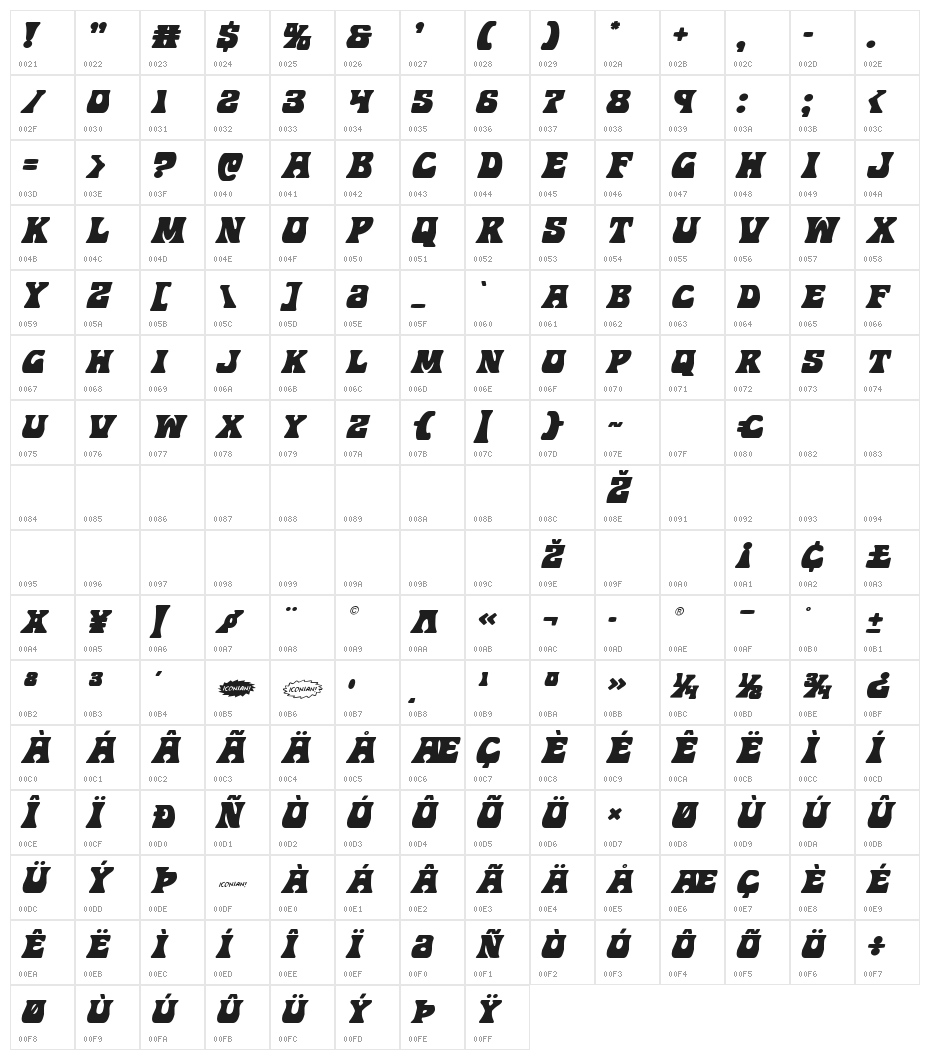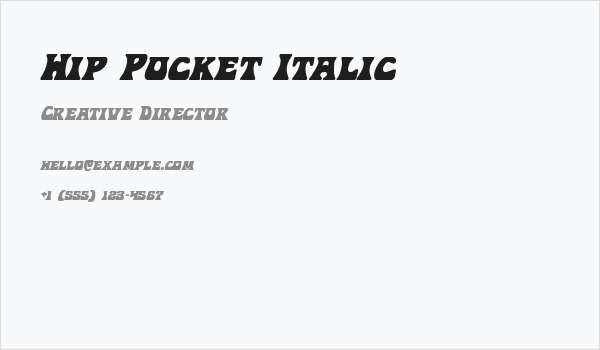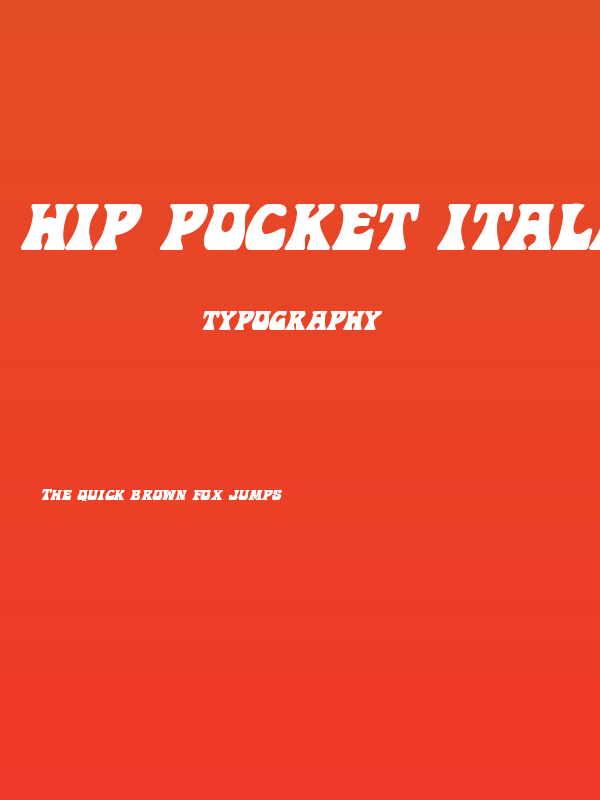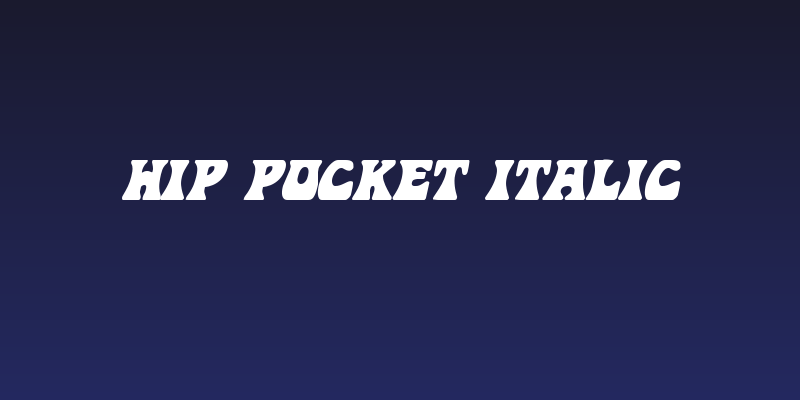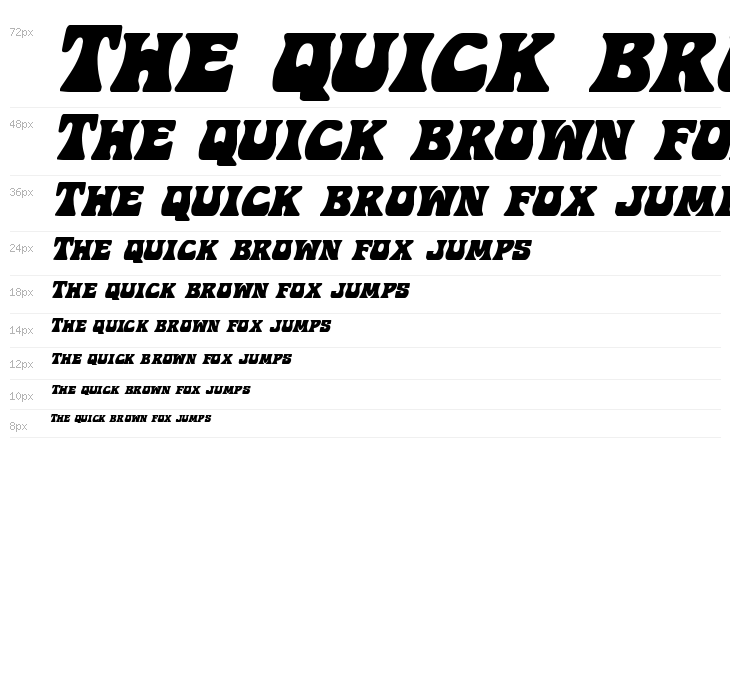
Hip Pocket Italic Font
Hip Pocket Italic Description
This font features a bold and dynamic style with a strong presence. The characters are heavily slanted, giving it an italicized appearance that adds a sense of motion and energy. The strokes are thick and consistent, providing a robust and impactful look. The design includes unique, playful curves and angles, particularly noticeable in the uppercase letters. The numbers and special characters maintain the same boldness and style, ensuring a cohesive appearance across all glyphs. This font is ideal for projects that require a strong visual impact and a touch of fun.
| Proposed Projects | Ideal for posters, logos, branding, and any design needing a bold, energetic typeface. |